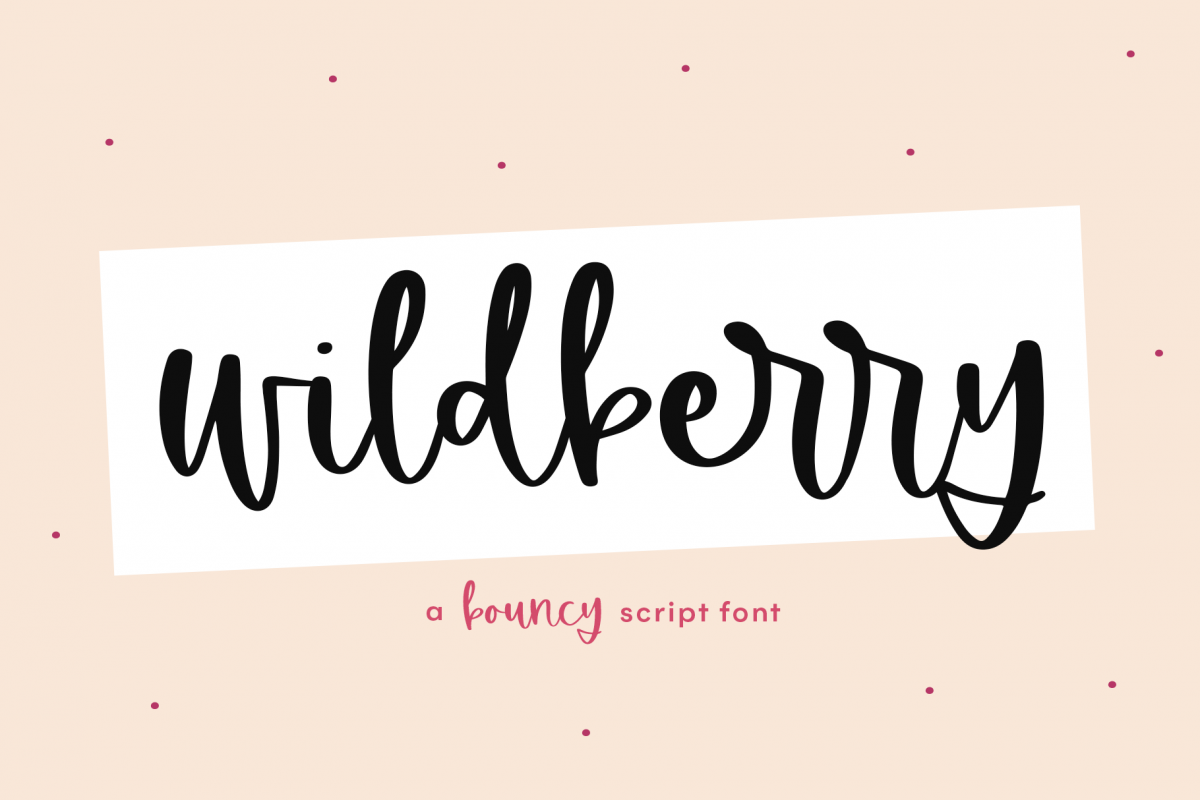
Wildberry - A Bouncy Handwritten Script Font
Wildberry
Wildberry is a bouncy handwritten script font!
This font is perfect for quotes, shirt designs, websites, branding, children's designs,  blogs, logos, invitations and more!